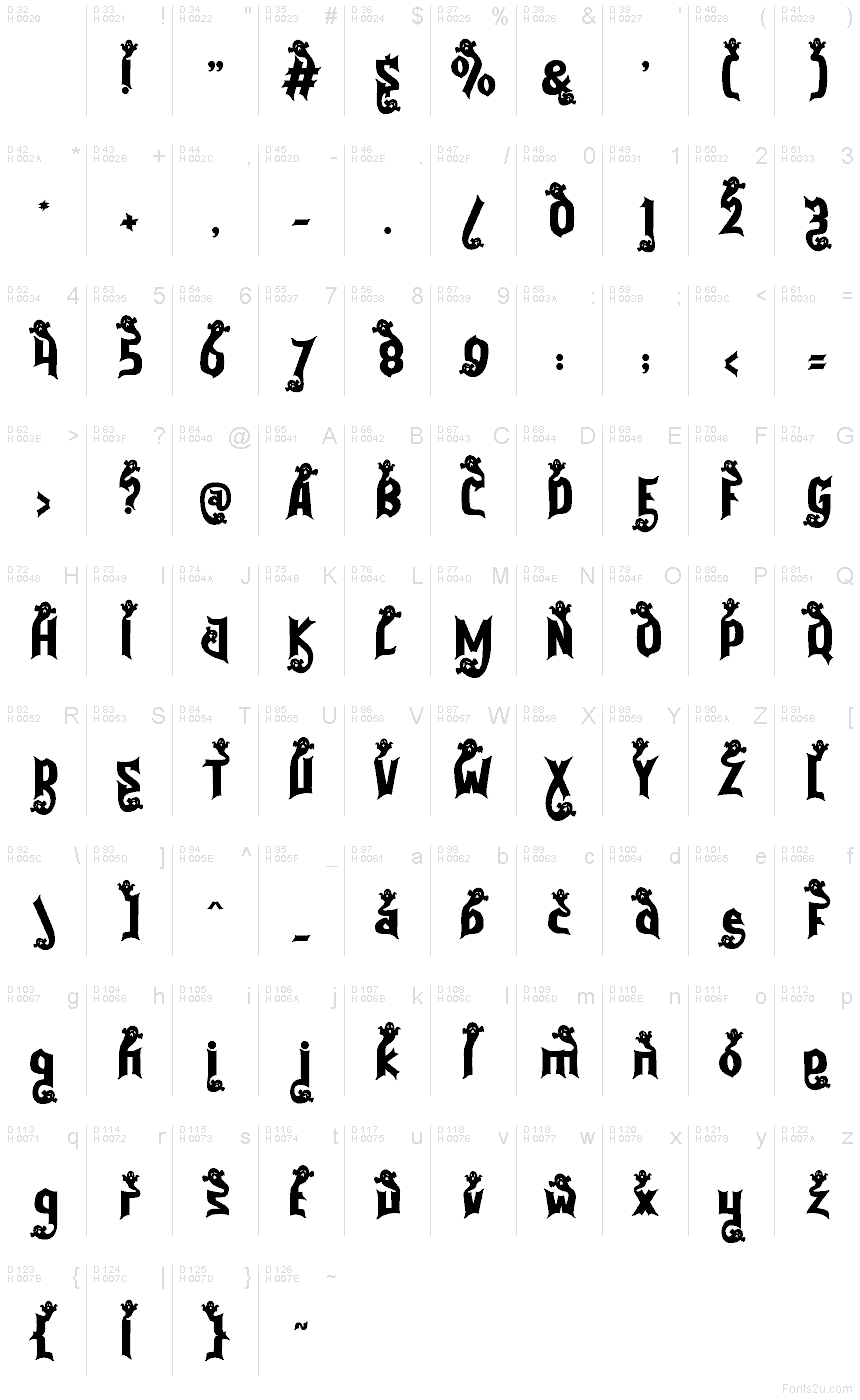
Purgatorie Ghost
Purgatorie Ghost font by PutraCetol Studio is a free Halloween display font from the Purgatorie family. It fuses gothic drama with cheeky specters: chunky blackletter stems sprout tiny ghost figures, while curling tails loop like smoke from a candle. The texture feels inky and theatrical—moody enough for chills, playful enough for treats.
Using Purgatorie Ghost instantly sets a spooky headline that reads at a glance. It shines on haunted house flyers, party invitations, candy labels, escape-room signage, social posts, YouTube thumbnails, and event banners. Pair this free font with a plain sans serif for body copy, and keep headlines large with a touch of extra letter spacing to let the ghosts breathe.